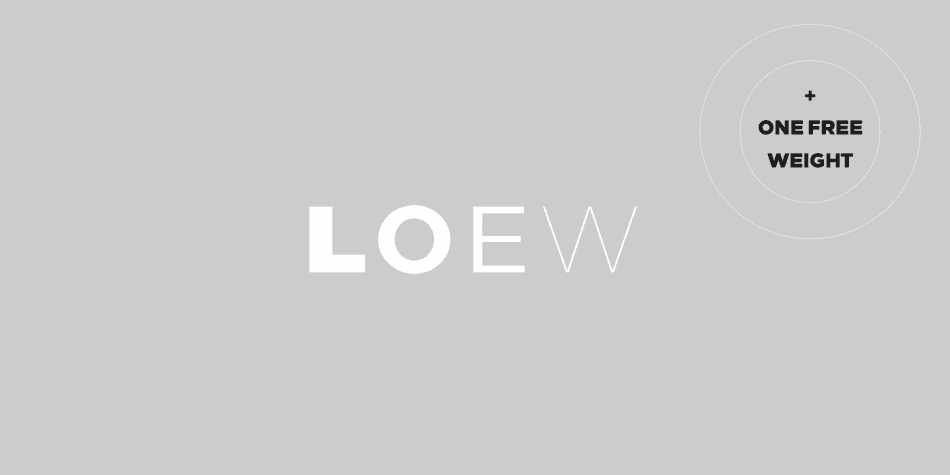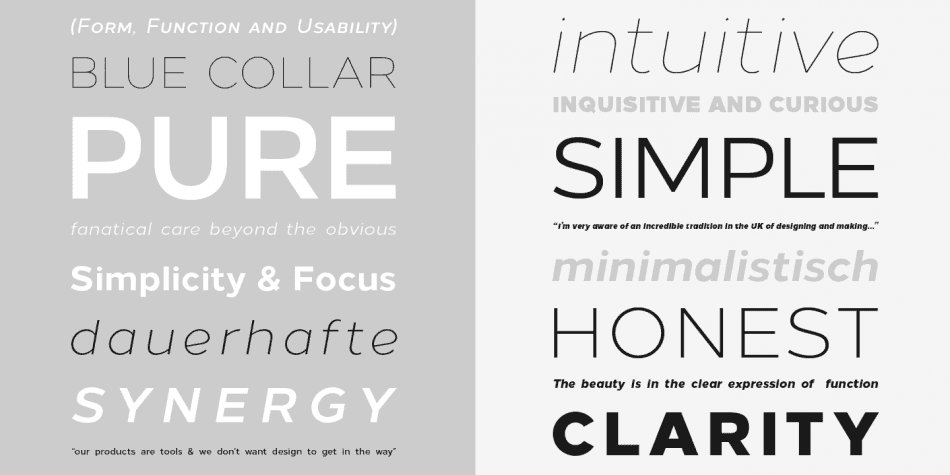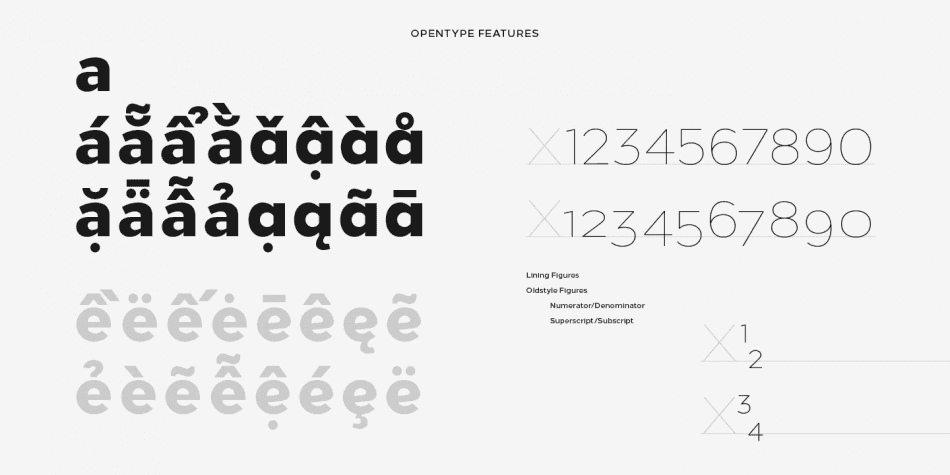
Loew font is the first geometric sans serif font designed specifically to reflect earlier industrial design influences, featuring 16 distinctive styles from Thin Italic to Black Italic.